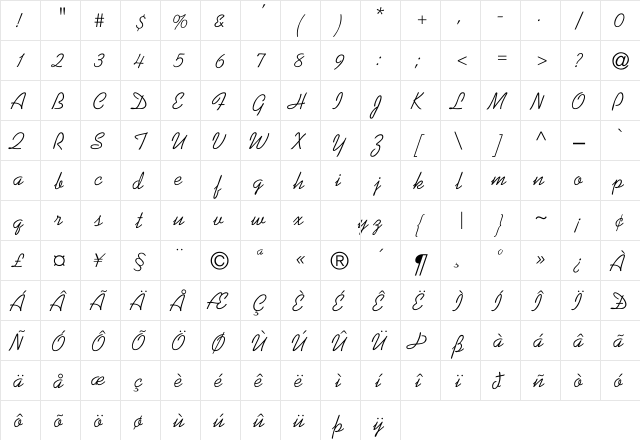
Hemmingway Regular
Design Context for Hemmingway Typeface
Hemmingway takes a measured approach to typography — its balanced proportions and neutral character make it a reliable workhorse for both digital and print work.